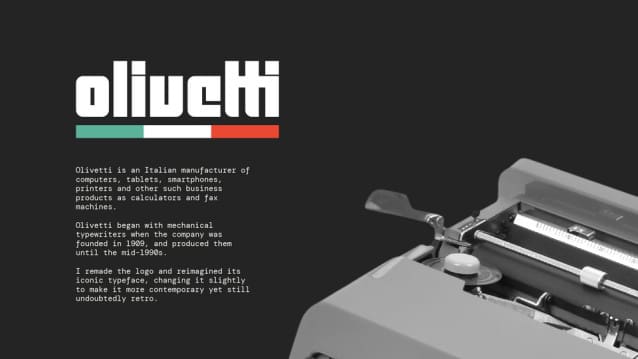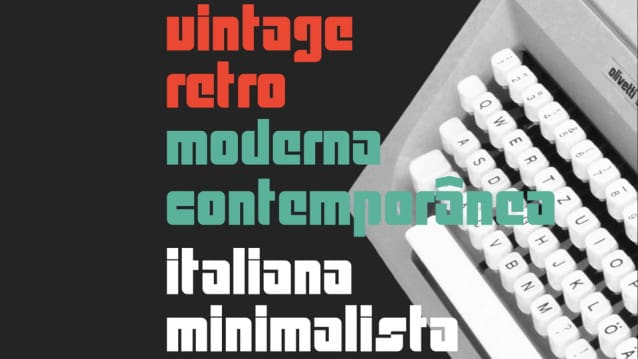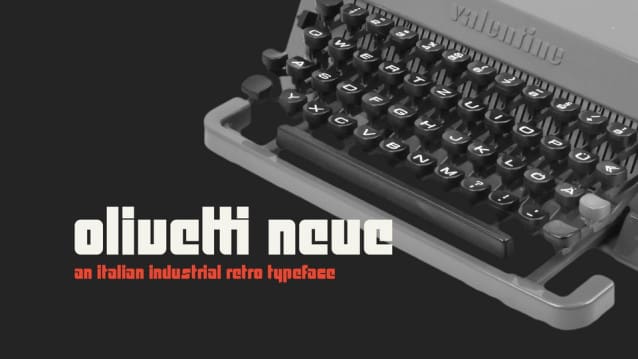
Olivetti Neue Font
Olivetti Neue Font is an Italian retro industrial font inspired by the typeface designed by Walter Ballmer for Olivetti an Italian manufacture of computers, tablets, smartphones, printers and other business products.
The logo was remade and its iconic typeface was reimagined with slight changes to make it more contemporary yet still undoubtedly retro.